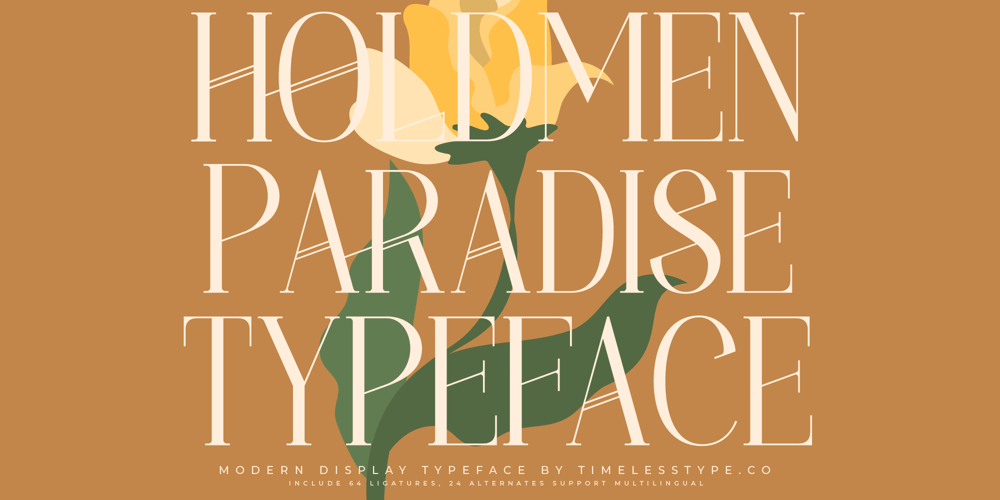
Holdmen Paradise
Holdmen Paradise font
Holdmen Paradise Font Family was designed by Heru Utama Putra and published by Timelesstype Studio. Holdmen Paradise contains 2 styles and family package options. Holdmen Paradise – Modern Display Typeface , from Timelesstype , Suitable for any projects such as: logos, branding projects, homeware designs, product packaging, mugs, quotes, posters, shopping bags, t-shirts, book covers, name card, invitation cards, greeting cards, label, photography, watermark, special events, and all your other luxury and beautiful projects that need a Luxury Serif taste.–Uppercase